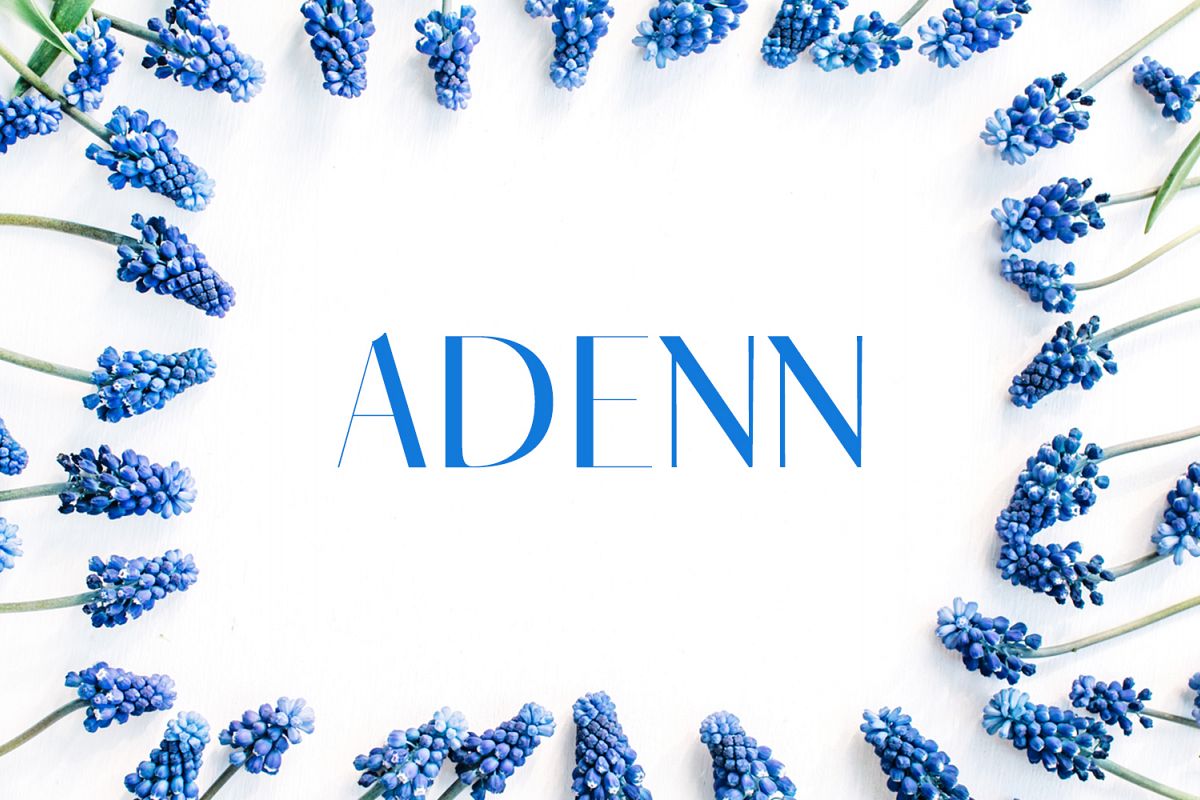
Adenn Sans Serif Typeface
Adenn-Thin
Adenn-Bold
Adenn-Ligh
Adenn-Regular
Adenn Serif Typeface is a minimal clean sans serif font family, which contains 4 weights and It features unique and modern sans serif look and feel. Perfect for gorgeous logos, titles, web layouts and branding. It looks gorgeous in all caps with a wide-set spacing if you want to try a classy look, or beautiful on its own in capital and lowercase letters for something completely timeless.Included Features:
• Font Weight: Regular, Thin, Light and Bold
Adenn Font Features:
• Uppercase Multilingual Letters
• Lowercase Multilingual Letters
• Alternative